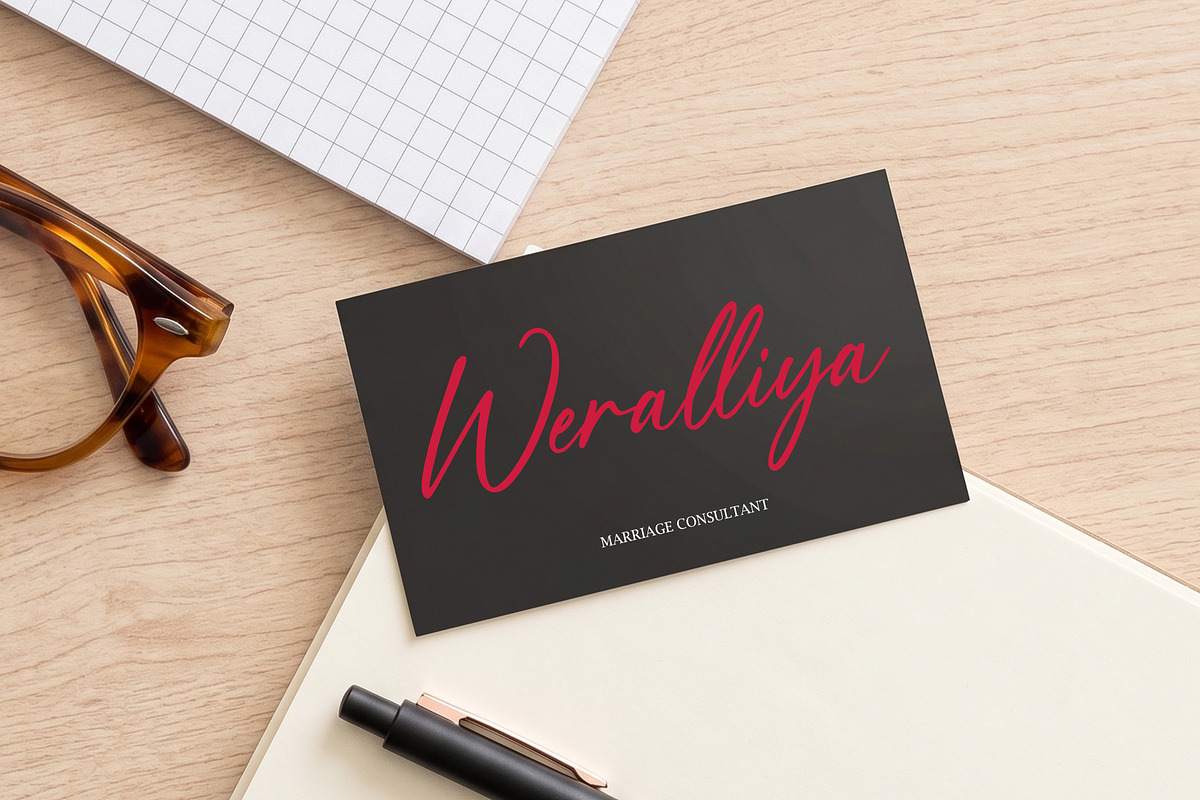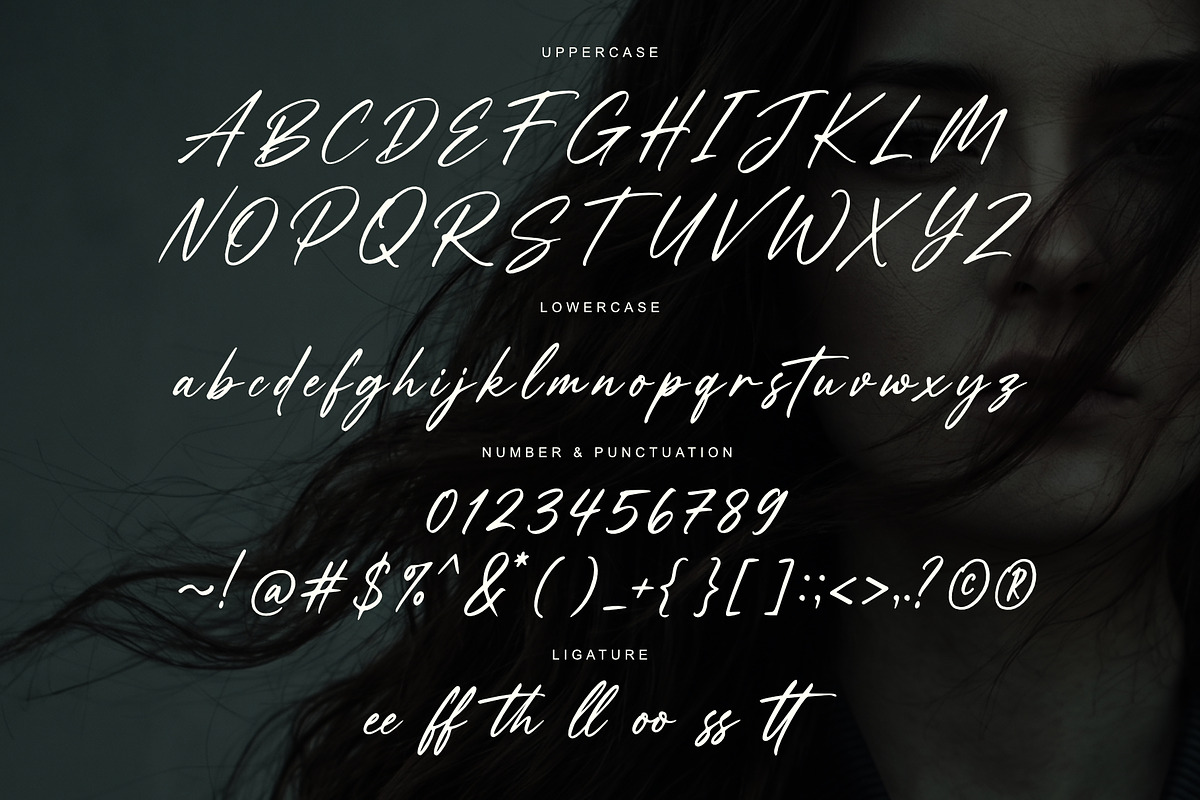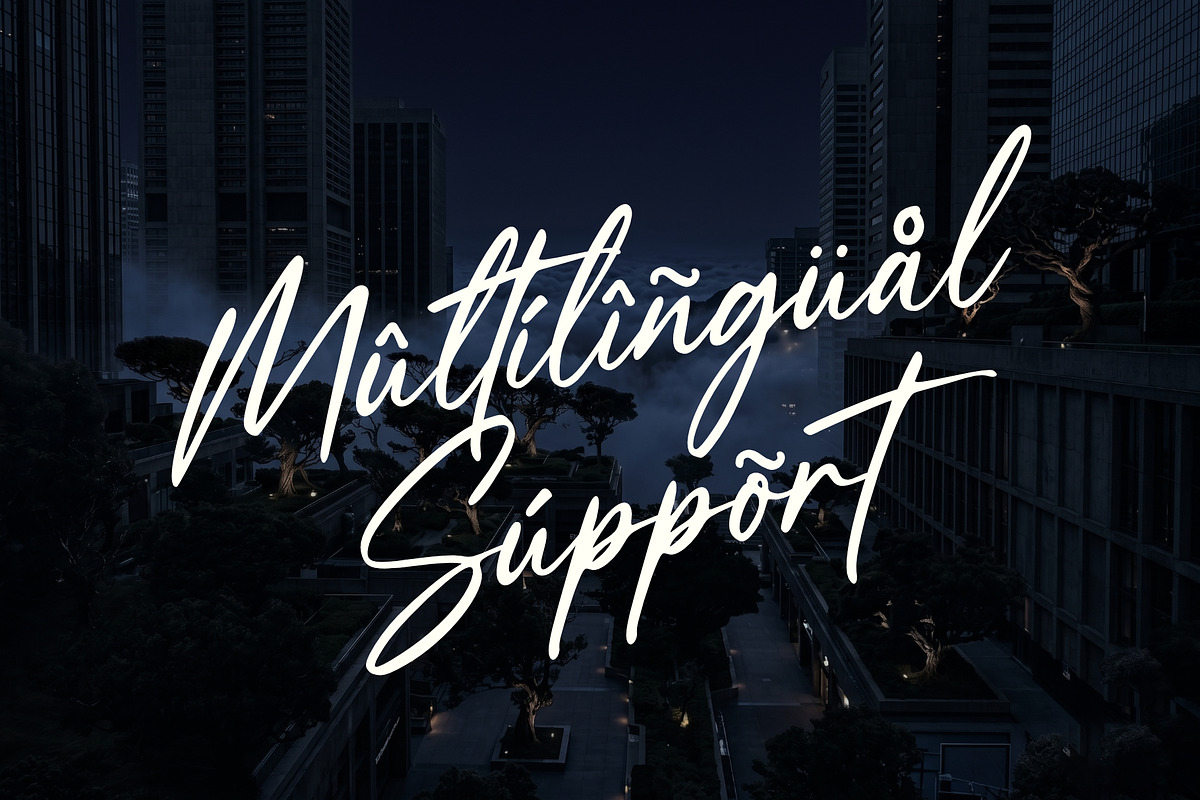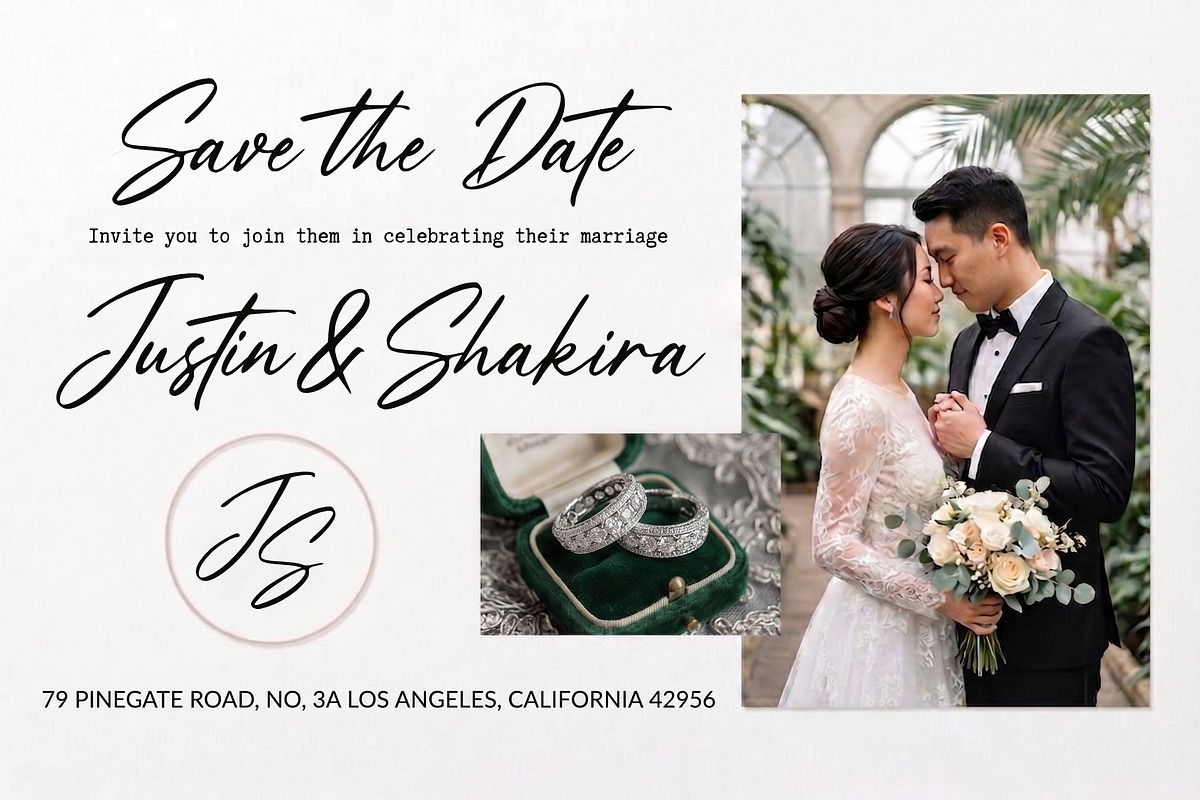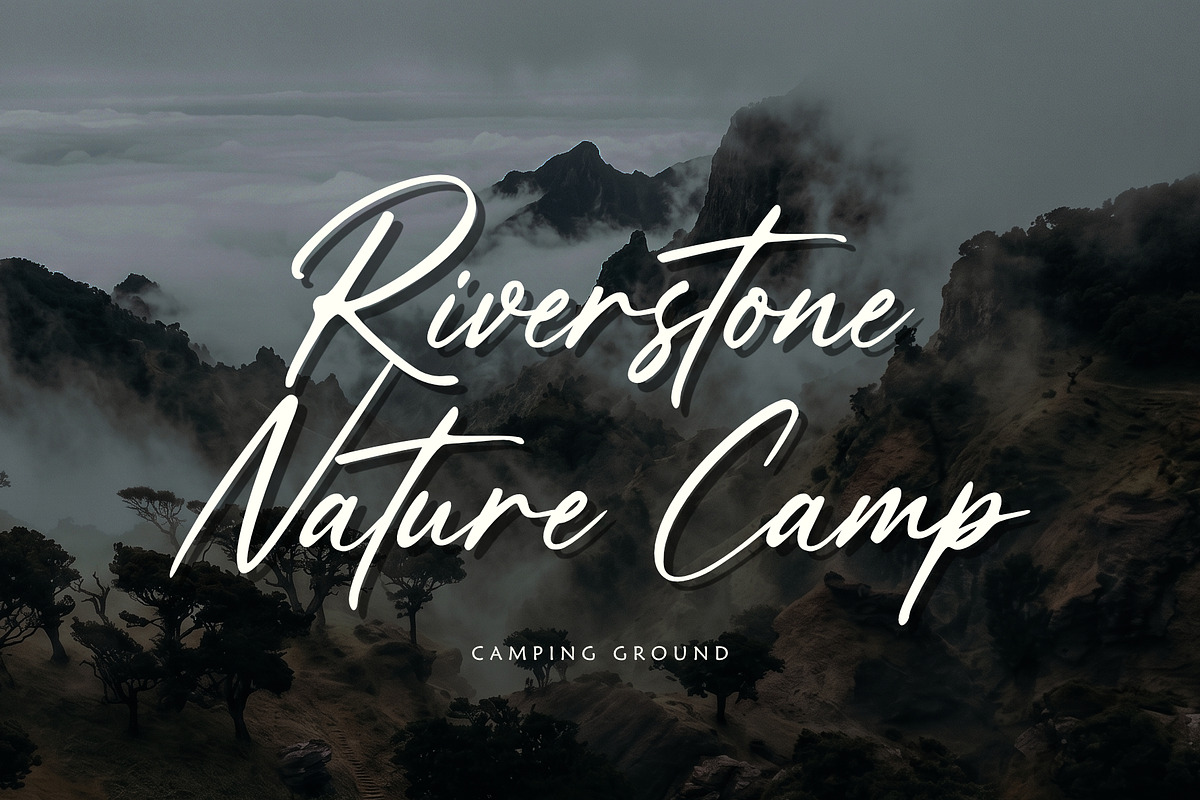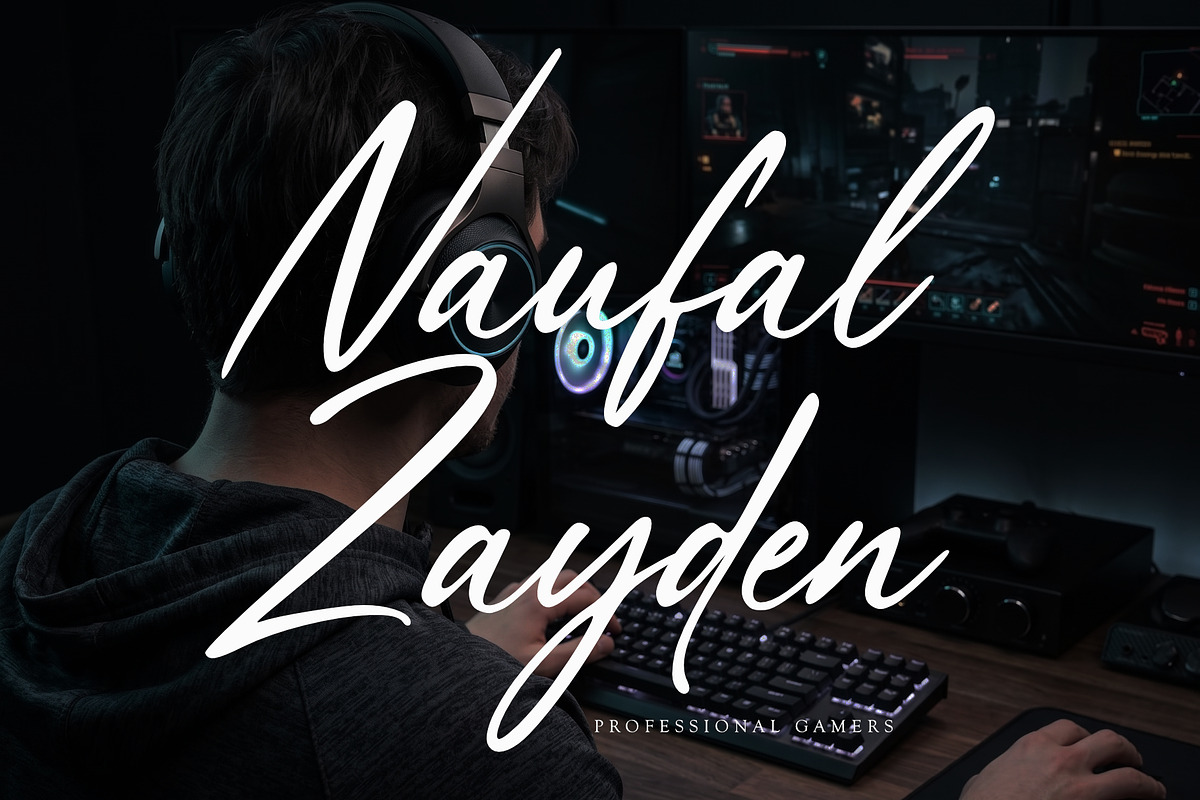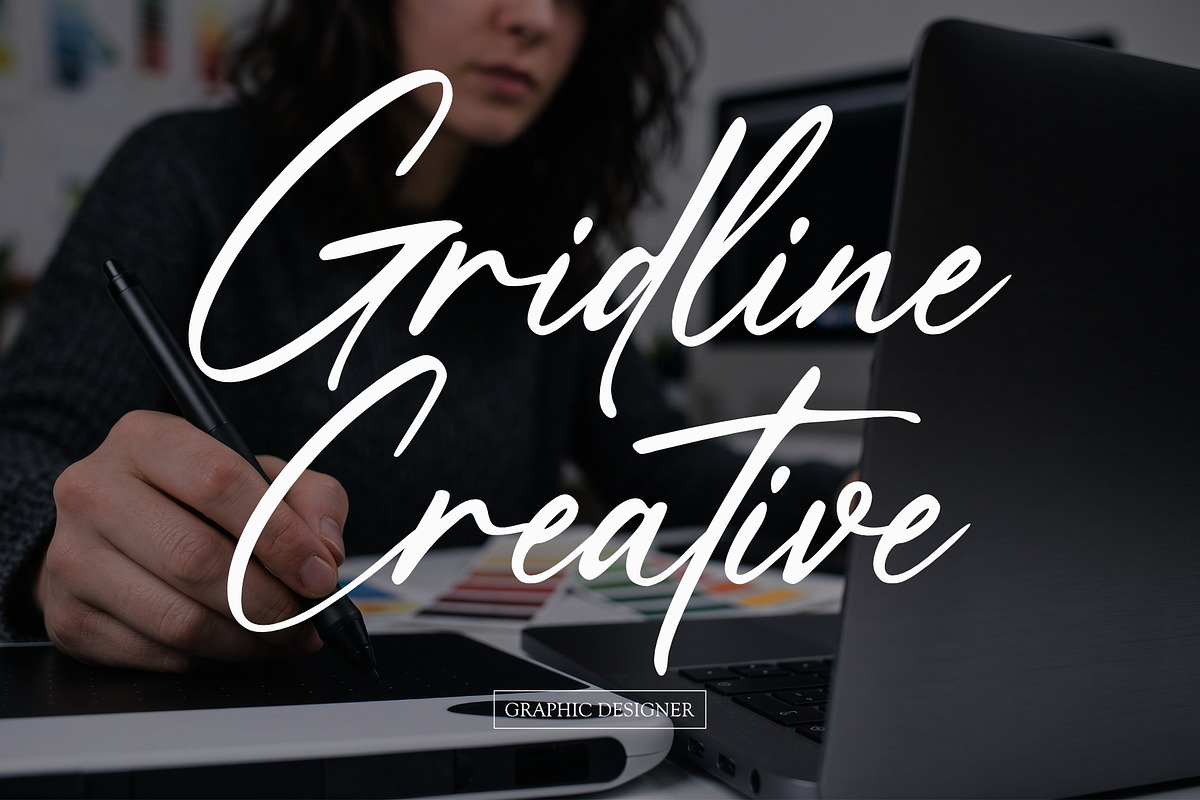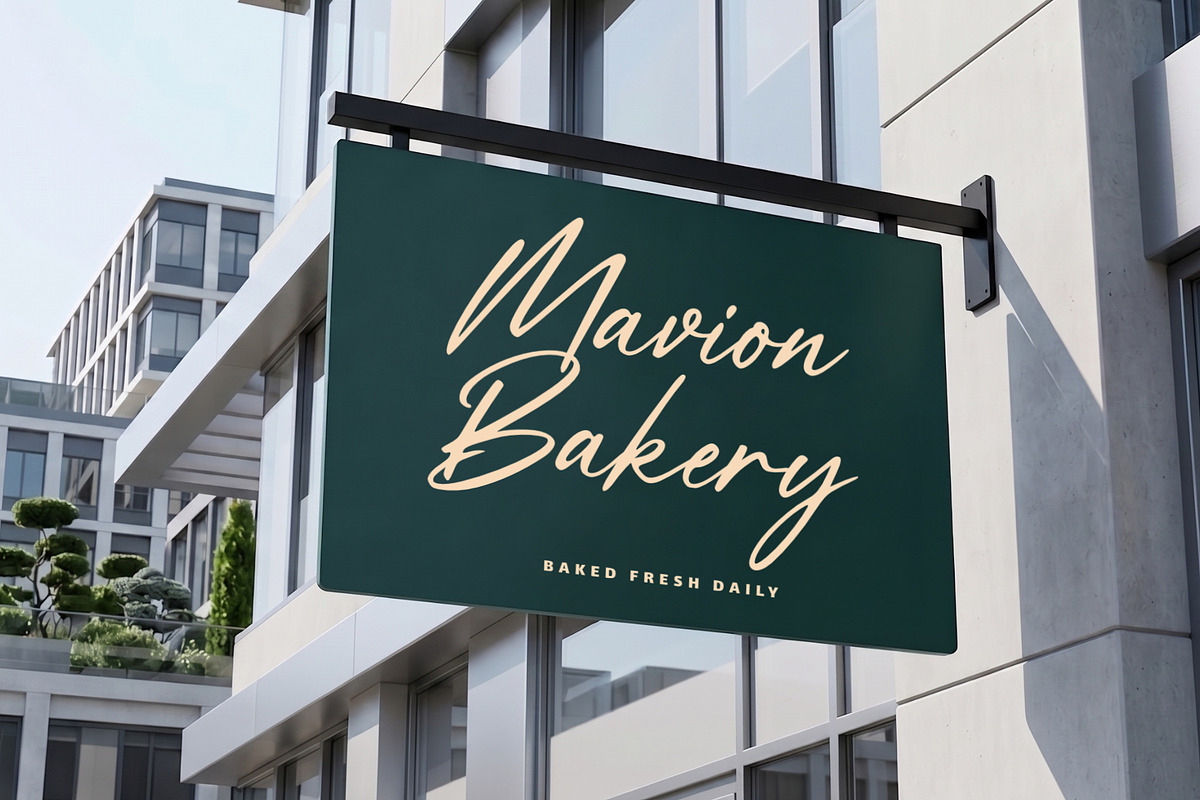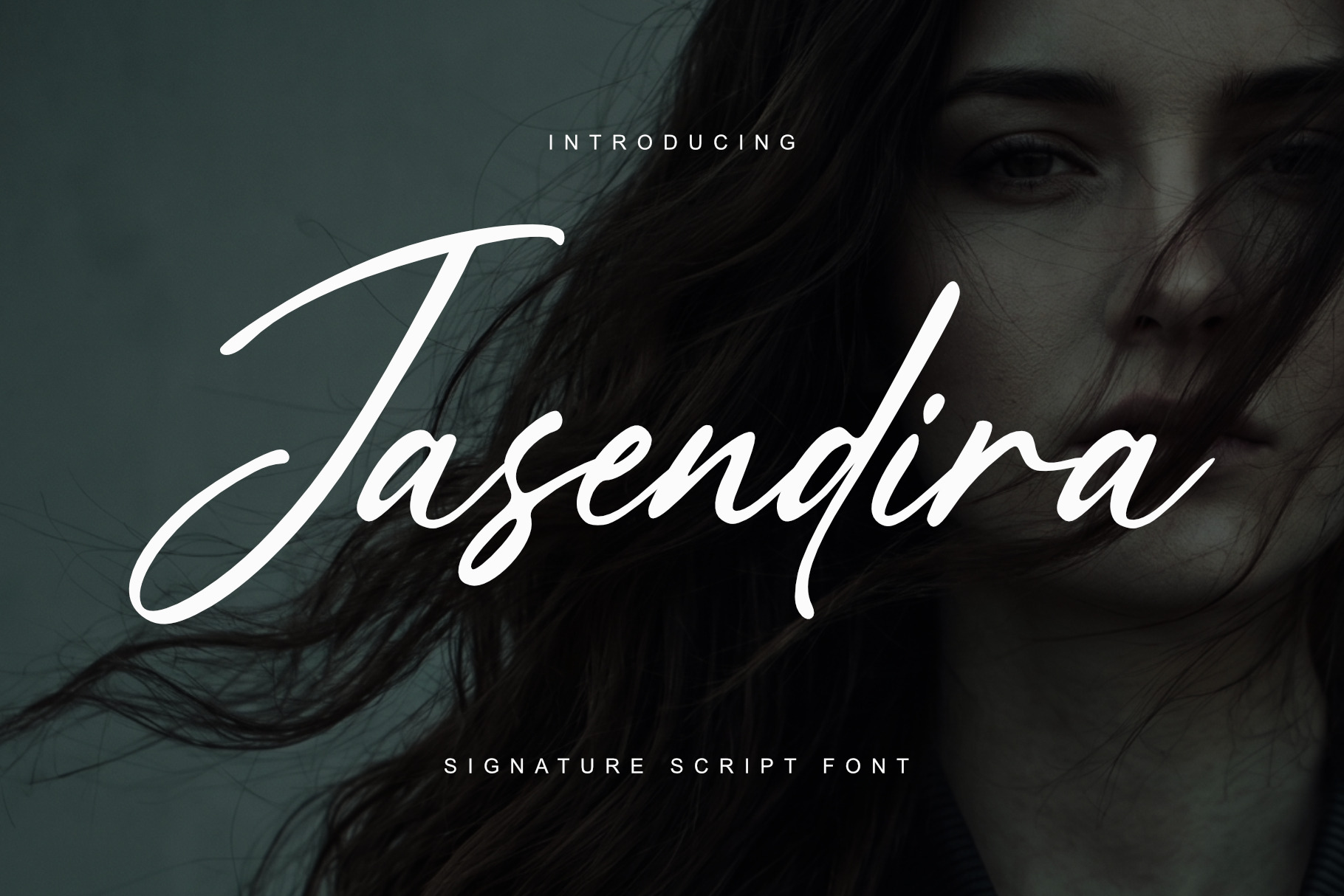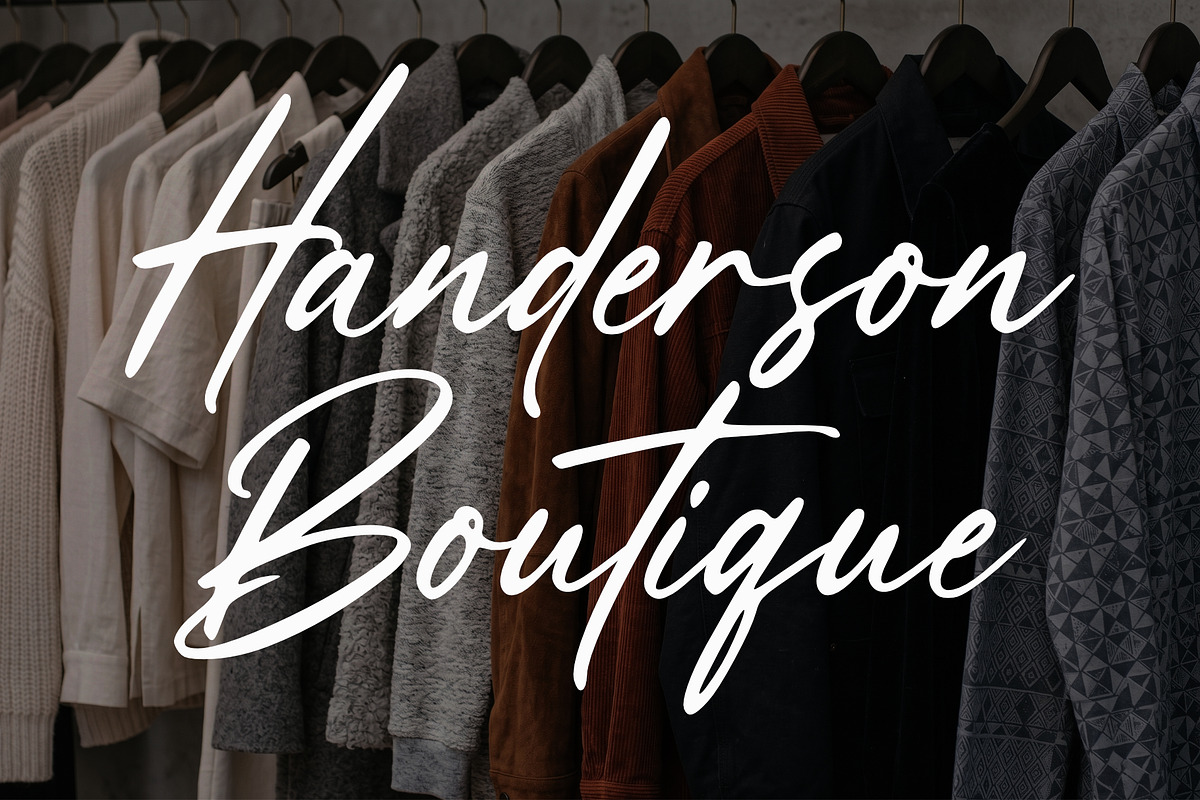
Jasendira - Signature Script Font
Jasendira Signature Script is an elegant handwritten font with a smooth, flowing signature style. Designed with refined curves and balanced strokes, this typeface delivers a modern, classy, and stylish look across a wide range of creative projects.
Its natural rhythm and clean structure make it highly versatile while maintaining a strong visual presence.
Elegant signature style
Smooth and natural flow
ligatures
Clean, modern, and professional appearance
Highly readable with artistic character
Logo and branding
Fashion and boutique design
Wedding invitations
Social media content
Photography watermark
Product packaging
Quotes and typography layouts
Uppercase & lowercase